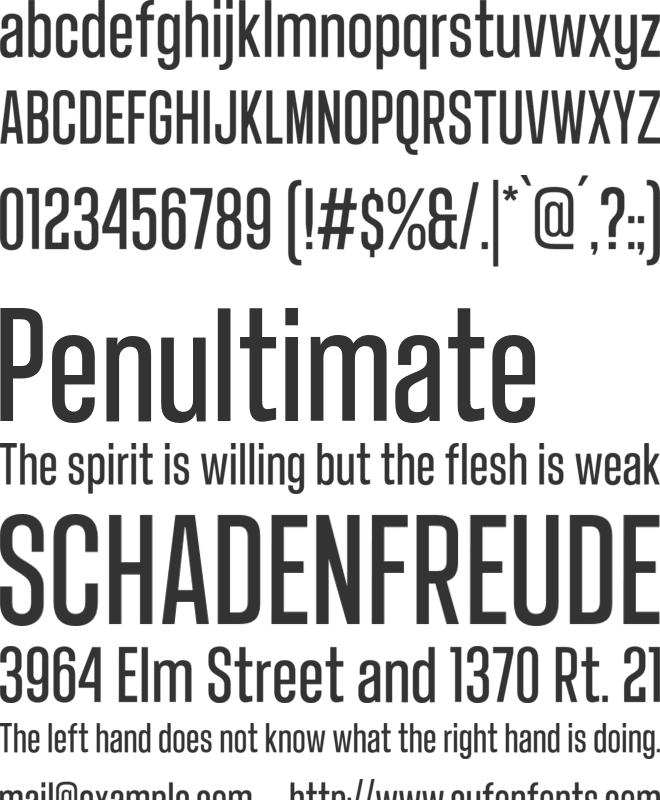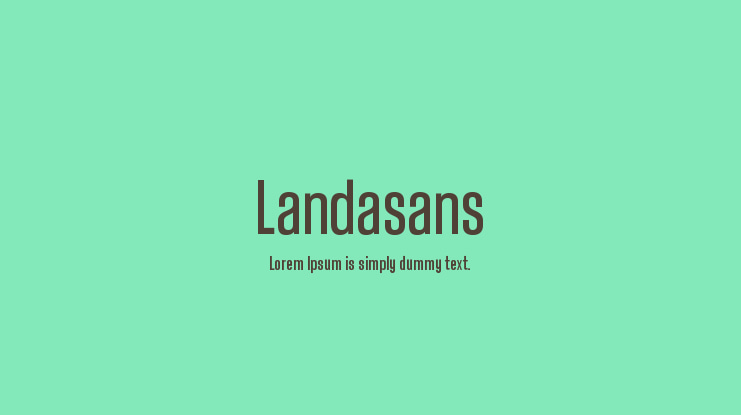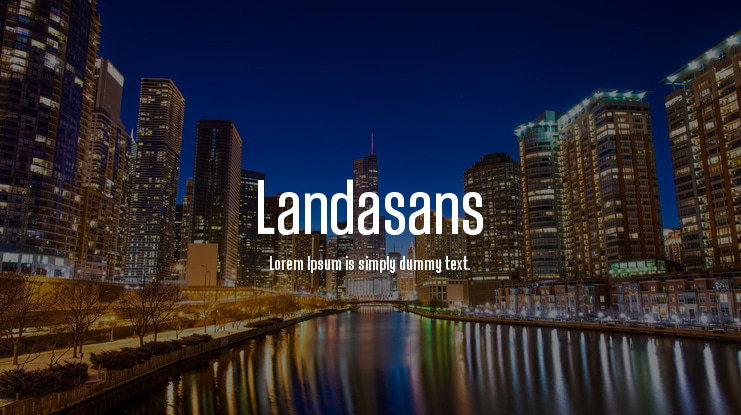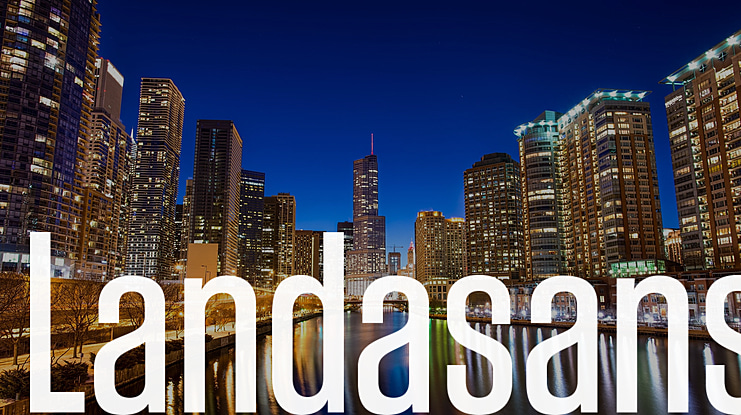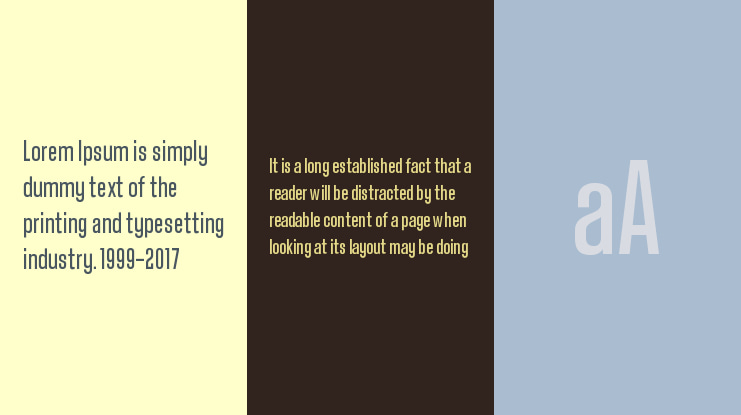
Landasans Font Family
Landasans - a family of sans serif font made by Mantra Aksara. A clean and modern typeface for headlines and display usage.
The typeface is clean, modern, and has clear reliability . After years of refining, Landasans is finally available with new features and as a complete Sans Serif Type Family spans from Thin to Extra Bold for every designs’ purposes.